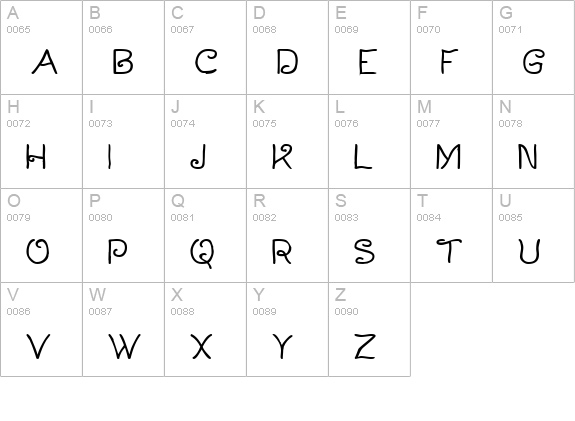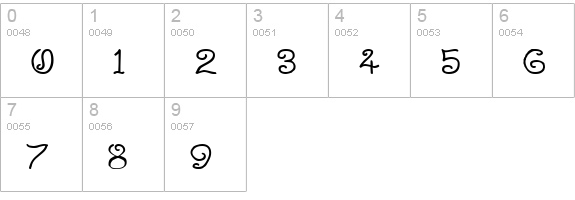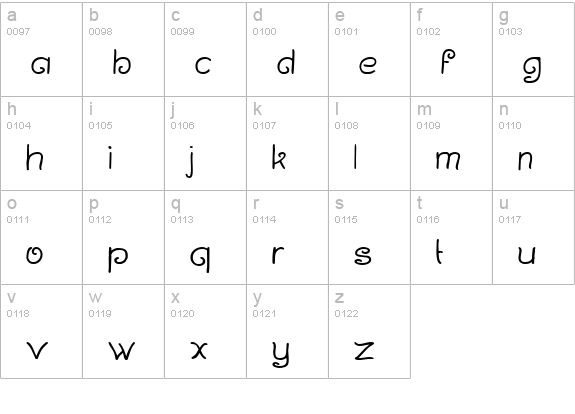
Curlmudgeon Font Details
Introducing Curlmudgeon font - a delightful and whimsical typeface that exudes charm and character. With its playful curls and elegant strokes, Curlmudgeon is perfect for adding a touch of personality to your designs. This unique font is sure to stand out and make a statement, whether used for branding, invitations, or any other creative project. The best part? Curlmudgeon font is completely free to download at FontsMarket.com. Simply visit the website to access this beautiful font and enhance your designs with its distinctive style. Don't miss out on the opportunity to add a touch of whimsy to your projects with Curlmudgeon font - download it today and let your creativity shine!